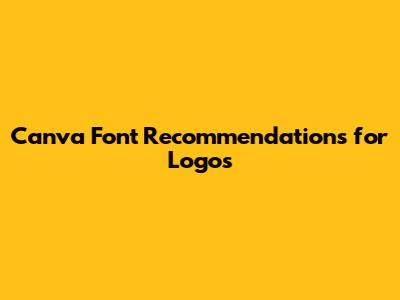
Canva Font Recommendations For Logos
Choosing the right font for your logo is crucial. Guys, it's like picking the perfect outfit for a first date – you want to make a great impression! And when you're designing a logo on Canva, the possibilities can seem endless. But don't worry, I'm here to guide you through the maze of fonts and help you find the perfect match for your brand. Let's dive into some fantastic Canva font recommendations that will make your logo shine. This is a really deep topic, so let's break it down into several sections so that it's easier to digest. Remember that each font carries its own unique personality, so choose wisely!
Understanding the Importance of Font Choice in Logo Design
The font you choose for your logo is more than just a way to display your brand's name; it's a visual representation of your brand's personality, values, and overall message. Think about it – a playful, bubbly font might be perfect for a children's brand, but it would look completely out of place for a high-end financial firm. The right font can communicate trustworthiness, innovation, elegance, or fun, all at a glance. That's why font selection is a cornerstone of branding and logo design. When you're creating a logo, you're not just picking letters; you're crafting an identity. A carefully chosen font enhances brand recognition, making your logo memorable and helping you stand out from the competition. It sets the tone for all your marketing materials, from business cards to website headers, ensuring a consistent brand image. Consider major brands like Coca-Cola or Google; their fonts are instantly recognizable and synonymous with their brand. This recognition is a direct result of consistent and thoughtful font choices. In contrast, a poorly chosen font can confuse your audience, dilute your brand message, and even make your company appear unprofessional. Imagine a law firm using a comic sans font – it simply wouldn't convey the seriousness and reliability expected of such a business. So, take your time, explore different options, and always keep your target audience and brand values in mind when selecting a font for your logo. The font you choose is a silent ambassador for your brand, so make sure it speaks volumes in the right way!
Top Canva Font Recommendations for Logos
When it comes to selecting fonts for logos in Canva, you're spoiled for choice, but let's narrow it down to some top-notch recommendations. These fonts are versatile, readable, and perfect for creating a lasting impression. First up is Montserrat. This is a classic sans-serif font that exudes modernity and sophistication. It's incredibly versatile, working well for tech companies, creative agencies, or any brand that wants to project a clean and contemporary image. Another excellent option is Raleway. With its elegant lines and slightly condensed form, Raleway is perfect for luxury brands, fashion boutiques, or businesses that value a refined aesthetic. Its versatility extends to both headings and body text, making it a great choice for a cohesive brand identity. If you're looking for something with a bit more character, consider Playfair Display. This serif font has a timeless quality, reminiscent of classic typography, yet with a modern twist. It's ideal for brands that want to convey a sense of history, tradition, or sophistication, such as publishing houses, upscale restaurants, or heritage brands. For a more playful and approachable vibe, Open Sans is a fantastic choice. This sans-serif font is clean, friendly, and highly readable, making it perfect for startups, educational institutions, or brands that want to connect with their audience on a personal level. Its simplicity ensures it works well in various contexts, from website headers to mobile apps. Another great option is Lato. This sans-serif font combines readability with a warm, friendly feel. Lato is perfect for businesses that prioritize clarity and accessibility, such as healthcare providers, non-profits, or service-oriented companies. Its rounded terminals give it a softer edge, making it more inviting than some of the more austere sans-serif options. Lastly, don't overlook the power of a good script font, like Great Vibes. However, use script fonts sparingly, as they can be harder to read in smaller sizes. Great Vibes is perfect for adding a touch of elegance and personality to your logo, especially for businesses in the wedding, beauty, or lifestyle industries. Remember to pair script fonts with a more readable sans-serif font for the rest of your branding to ensure clarity. So, there you have it – a curated list of Canva fonts that are sure to elevate your logo design. Experiment with these options and see which one best reflects your brand's unique identity!
Pairing Fonts for a Professional Logo Design
Font pairing is a crucial skill in logo design. The right combination of fonts can elevate your logo from good to great, creating a visually appealing and professional look. The goal is to choose fonts that complement each other, creating a harmonious balance that enhances readability and reflects your brand's personality. A common strategy is to pair a serif font with a sans-serif font. For example, you could pair Playfair Display (a serif font with a classic feel) with Montserrat (a modern sans-serif font). This combination provides a nice contrast, with the serif font adding a touch of elegance and the sans-serif font providing a clean, contemporary feel. Another effective pairing is Raleway (an elegant sans-serif font) with Roboto (a versatile and readable sans-serif font). This combination works well because Raleway is slightly more decorative, while Roboto is more straightforward, creating a balanced and professional look. When pairing fonts, consider the hierarchy of information. Typically, the logo's main text (usually the brand name) should be the more prominent font, while any secondary text (such as a tagline) can be a simpler, more understated font. This helps guide the viewer's eye and ensures that the most important information stands out. Remember to limit the number of fonts you use in your logo design. Sticking to two fonts is generally a good rule of thumb, as using too many fonts can make your logo look cluttered and unprofessional. Also, pay attention to the font weights and styles. Using different weights of the same font family can add visual interest without introducing too many different fonts. For example, you could use Montserrat Bold for the brand name and Montserrat Regular for the tagline. Finally, always test your font pairings in different sizes and contexts to ensure they remain readable and visually appealing. What looks good on your computer screen may not translate well to a business card or a billboard, so it's essential to check your font pairings in various applications. By mastering the art of font pairing, you can create a logo that not only looks professional but also effectively communicates your brand's message.
Avoiding Common Font Mistakes in Logo Design
When designing a logo, it's easy to fall into common font traps that can undermine your brand's image. Let's talk about some common font mistakes and how to avoid them. One of the biggest mistakes is choosing a font that is difficult to read. Legibility is paramount in logo design. If people can't easily read your brand name, your logo is failing at its primary purpose. Avoid overly decorative or script fonts for the main text of your logo, especially if your brand name is long or complex. Always prioritize clarity and readability. Another common mistake is using too many fonts. As mentioned earlier, sticking to two fonts is generally a good rule of thumb. Using more than two fonts can make your logo look cluttered and unprofessional. Each font should have a specific purpose, and too many fonts can create visual chaos. Avoid trendy fonts that are likely to go out of style quickly. While it's tempting to use the latest hot font, remember that logo design is about longevity. Choose fonts that are timeless and classic, ensuring that your logo will remain relevant for years to come. Another pitfall is neglecting to consider your target audience. The font you choose should resonate with your target audience and reflect your brand's personality. A font that appeals to a young, hip audience might not be appropriate for a more mature or conservative demographic. Always keep your target audience in mind when selecting fonts. Be careful with font sizes and spacing. The size of your font and the spacing between letters and lines can significantly impact readability. Ensure that your font is large enough to be easily read and that the spacing is appropriate to avoid crowding or awkward gaps. Avoid using generic or overused fonts. While fonts like Arial and Times New Roman are perfectly acceptable for body text, they can make your logo look bland and uninspired. Explore more unique and distinctive font options that will help your brand stand out from the competition. Finally, don't forget to test your logo in different sizes and formats. A font that looks great on your computer screen may not translate well to a small business card or a large banner. Always test your logo in various applications to ensure it remains legible and visually appealing. By avoiding these common font mistakes, you can create a logo that is not only visually appealing but also effectively communicates your brand's message and stands the test of time.
Utilizing Canva's Font Filters and Search Features
Canva offers a range of powerful tools to help you find the perfect font for your logo. Utilizing Canva's font filters and search features can save you time and effort, allowing you to quickly narrow down your options and discover fonts that align with your brand's aesthetic. One of the most useful features is the ability to filter fonts by style. Canva allows you to filter fonts by categories such as Serif, Sans Serif, Script, Display, and Handwritten. This makes it easy to focus on font styles that are relevant to your brand. For example, if you're looking for a classic and elegant font, you can filter by Serif fonts. If you prefer a clean and modern look, you can filter by Sans Serif fonts. Canva also allows you to search for fonts by keyword. This is particularly useful if you have a specific style or theme in mind. For example, you could search for